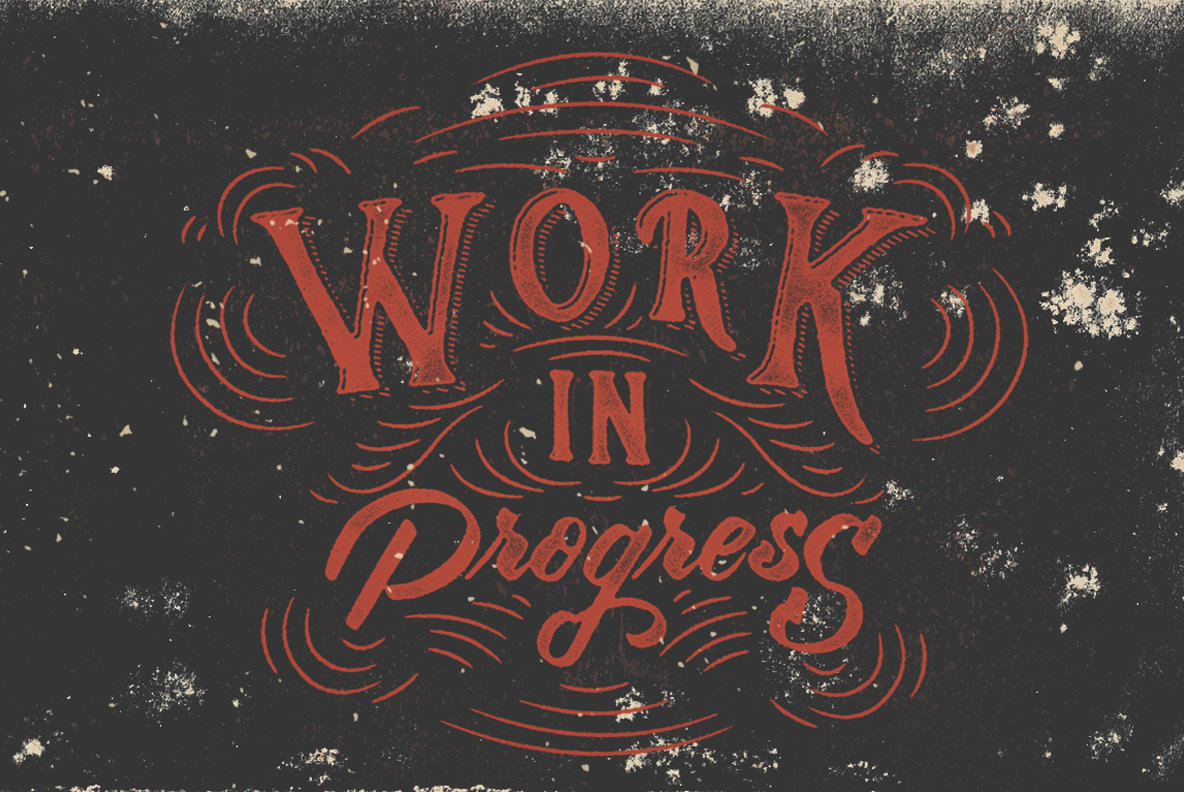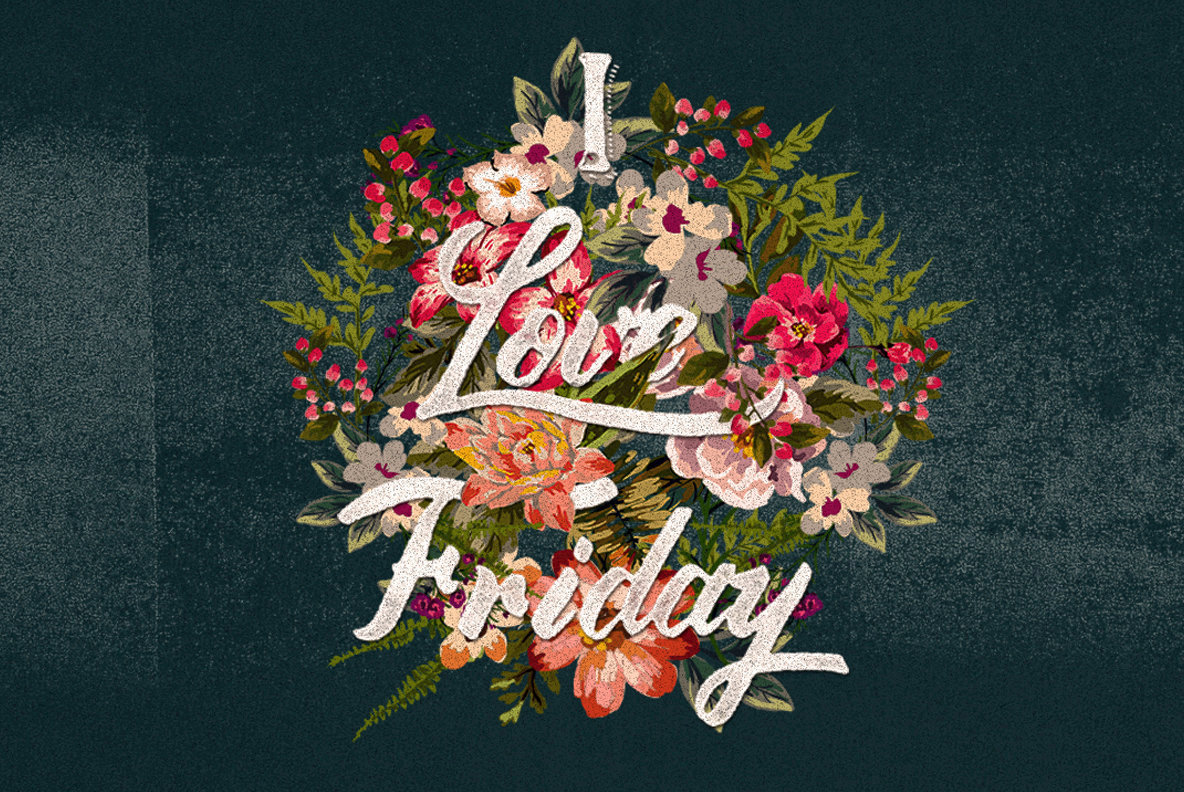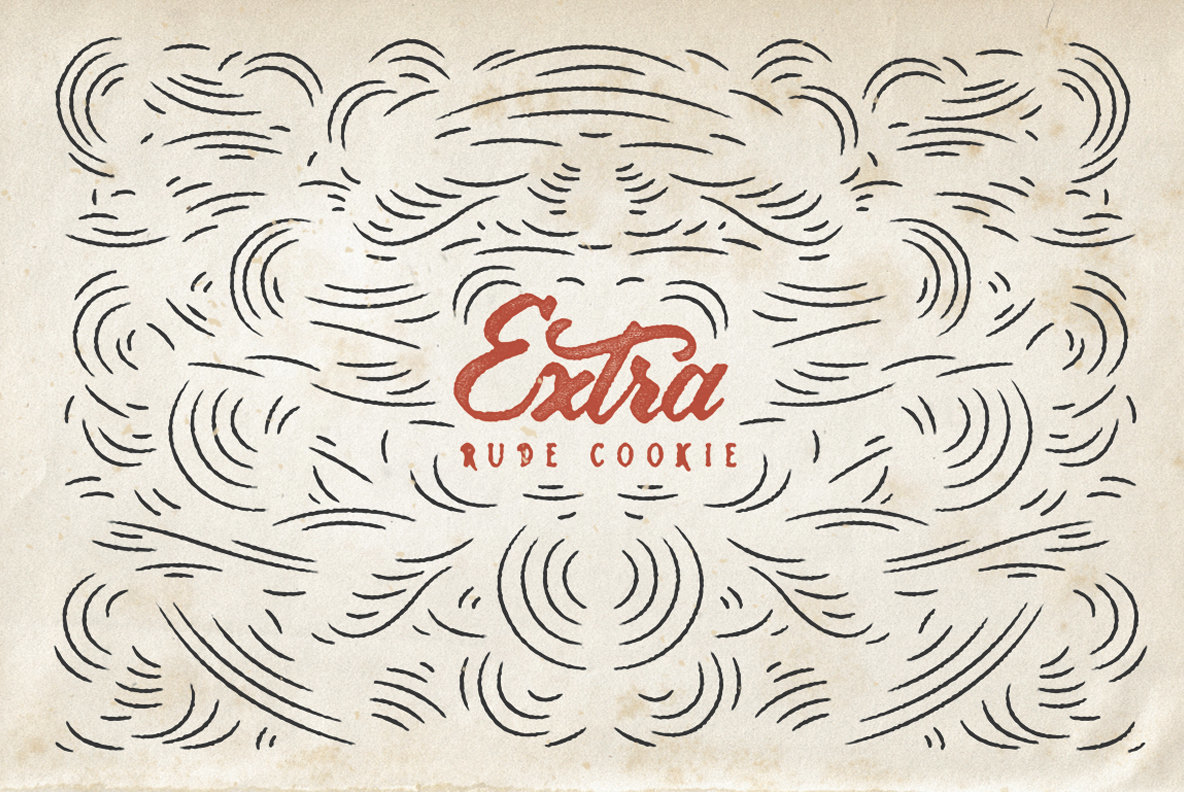
Rude Cookie Font
Rude Cookie Blok
Rude Cookie Brush
Rude Cookie Front
Rude Cookie Garis
Rude Cookie is a hand drawn style font that contains a unique and vintage character.